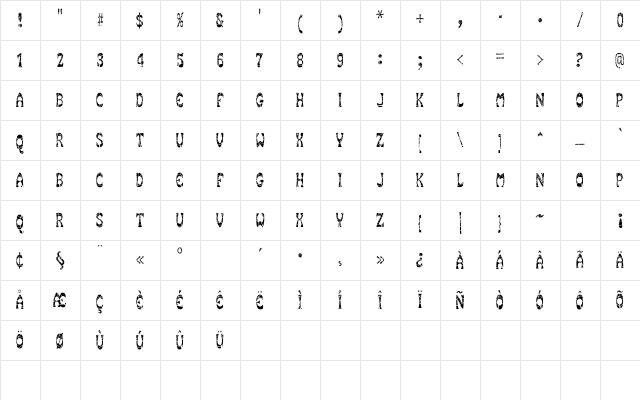
Complete SmokeHouseShatter Regular glyph index. Displaying only characters natively supported by SmokeHouseShatter Regular font.
SmokeHouseShatter is a composed and adaptable typeface that performs quietly and consistently across a wide range of design contexts.